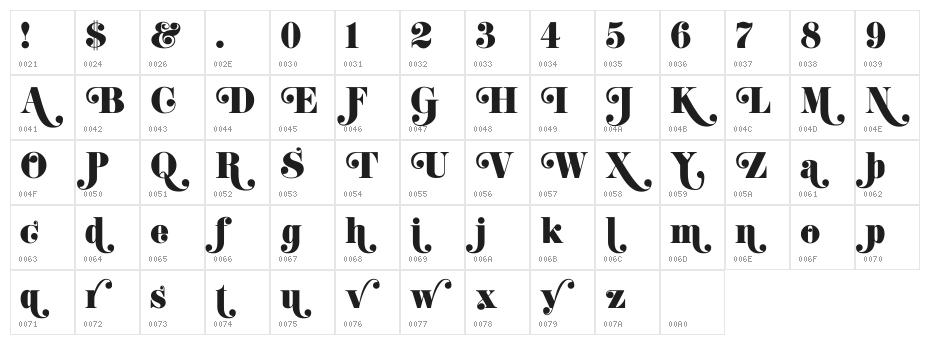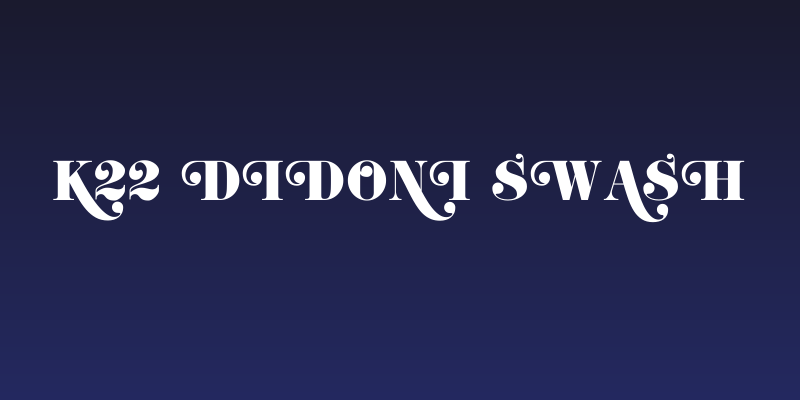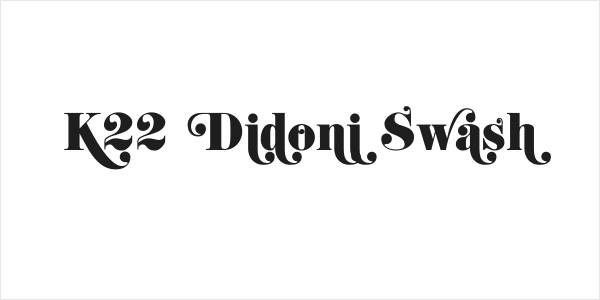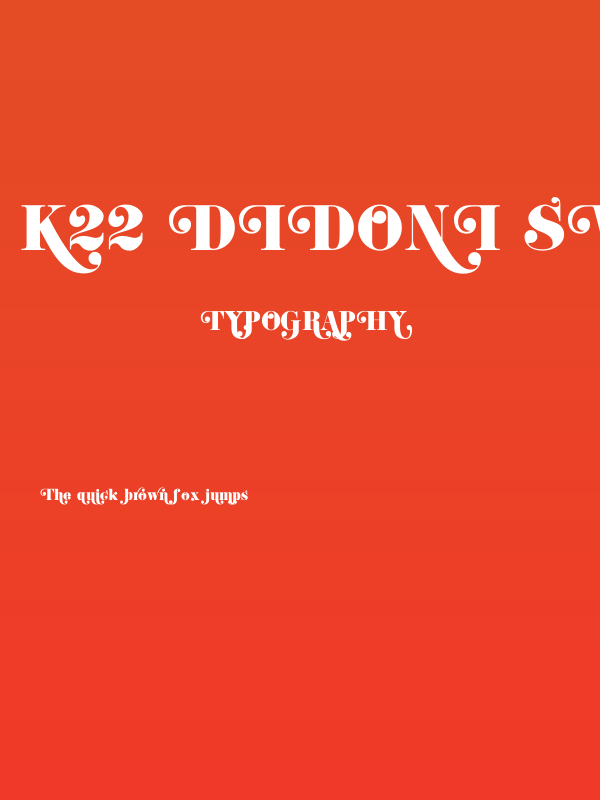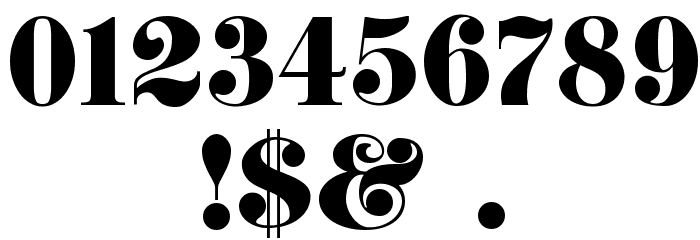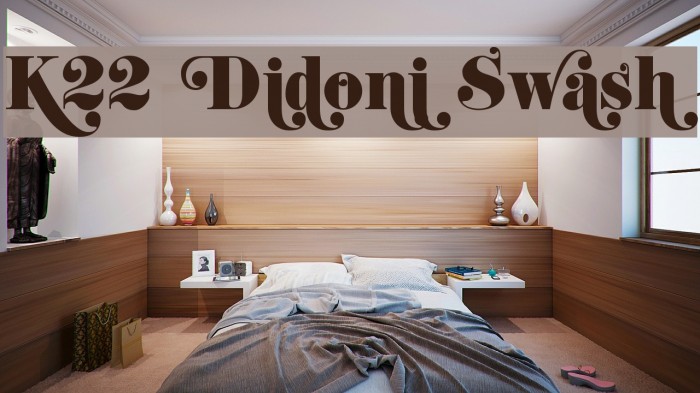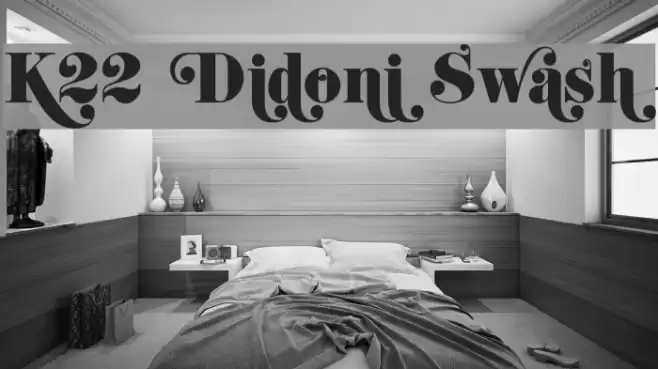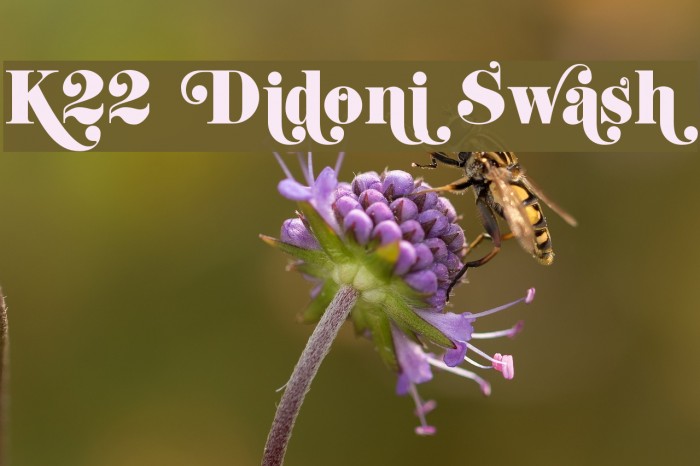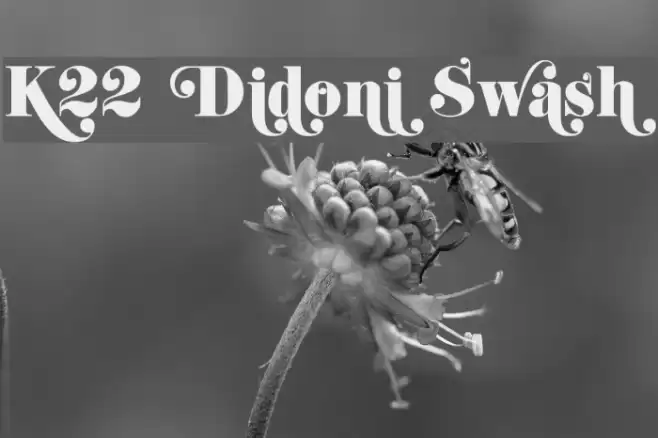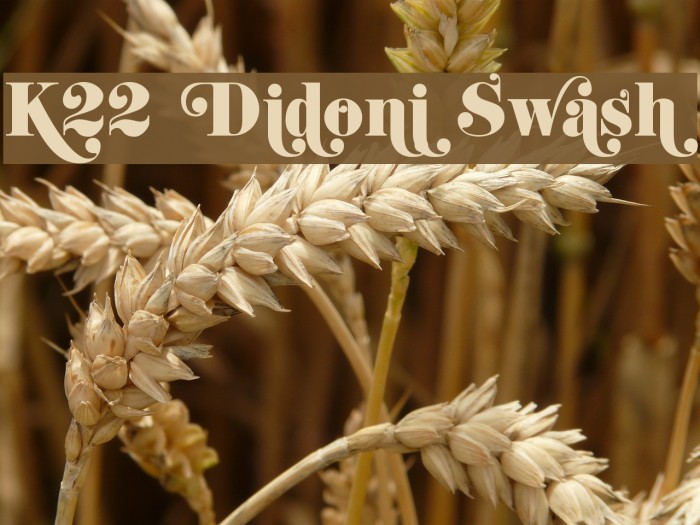
K22 Didoni Swash Font
K22 Didoni Swash Description
This font is a decorative typeface characterized by its elegant swashes and high contrast between thick and thin strokes. The uppercase letters feature intricate curls and flourishes, giving it a sophisticated and ornamental appearance. The lowercase letters maintain a similar style, with some characters having unique, playful loops. The numerals are bold and maintain the high contrast seen in the alphabet, making them stand out. Special characters are equally ornate, adding to the font's overall decorative appeal. This typeface is ideal for projects that require a touch of elegance and flair.